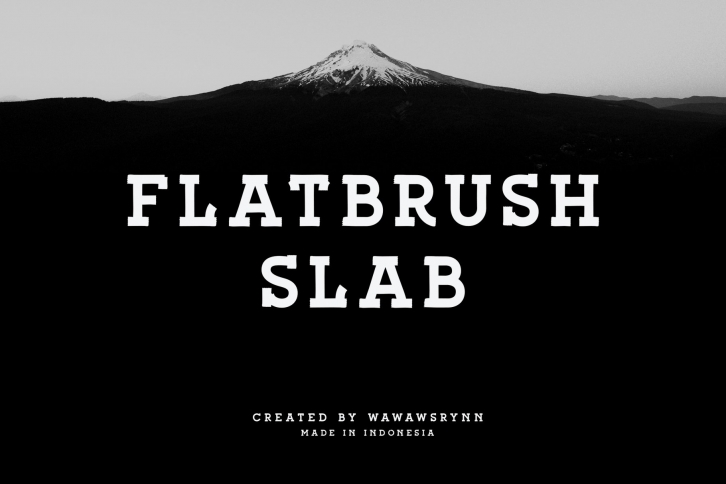
FLATBRUSH SLAB is solid brush Slab Serif style. inspired by classic sign painting, and enshrined with vectors so that it looks like a modern classic impression and has a strong character. This font is designed for a display, poster, graphic design, sign, letter, typeface, headline etc.
- AllCaps
- Numeral
- Pungtuations
Single Style